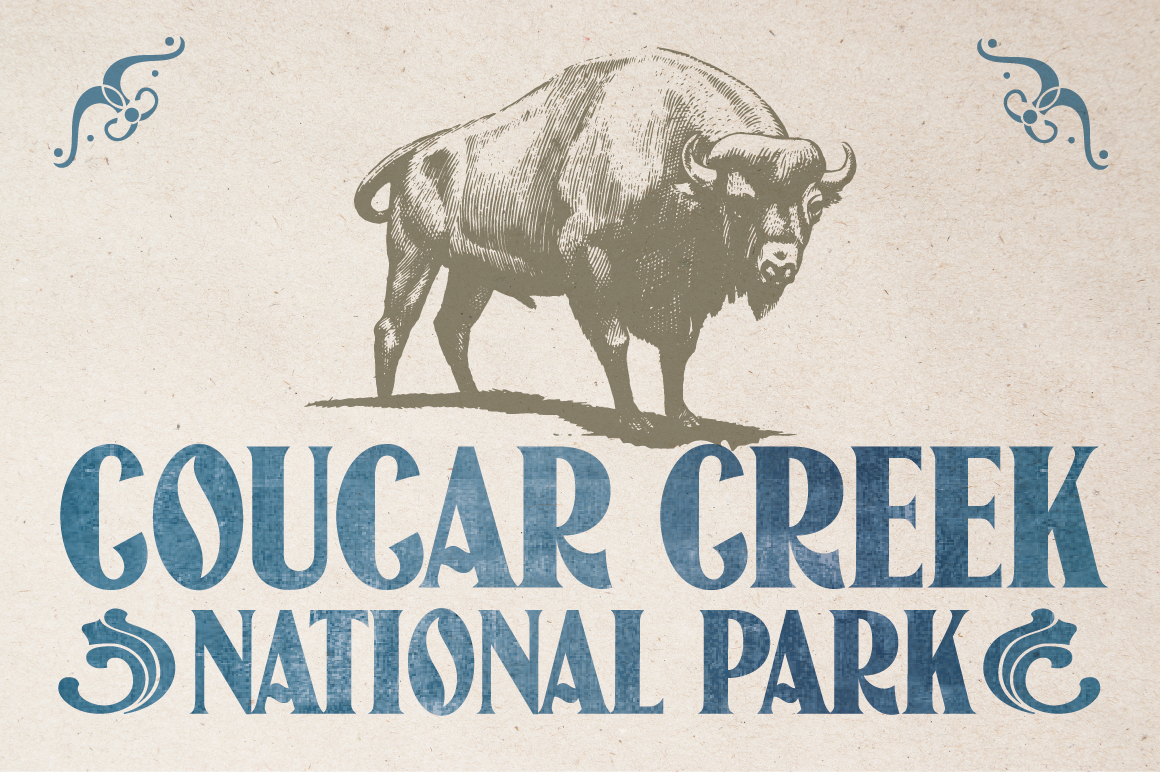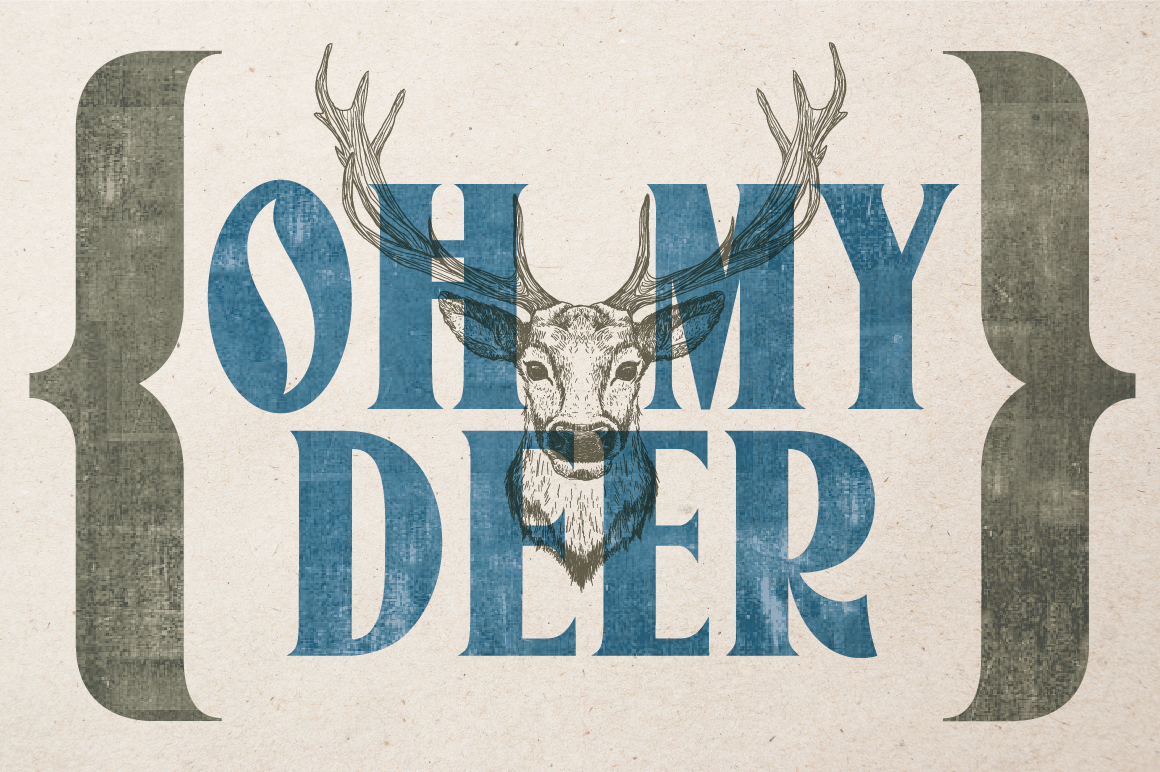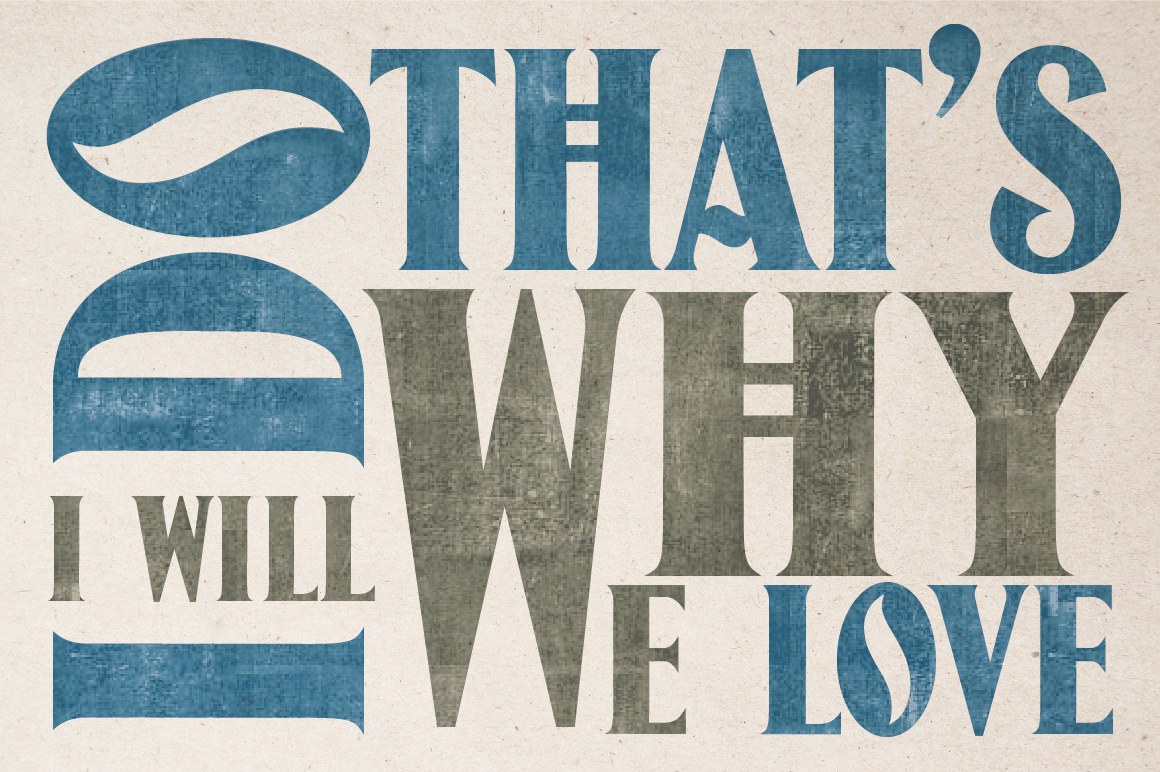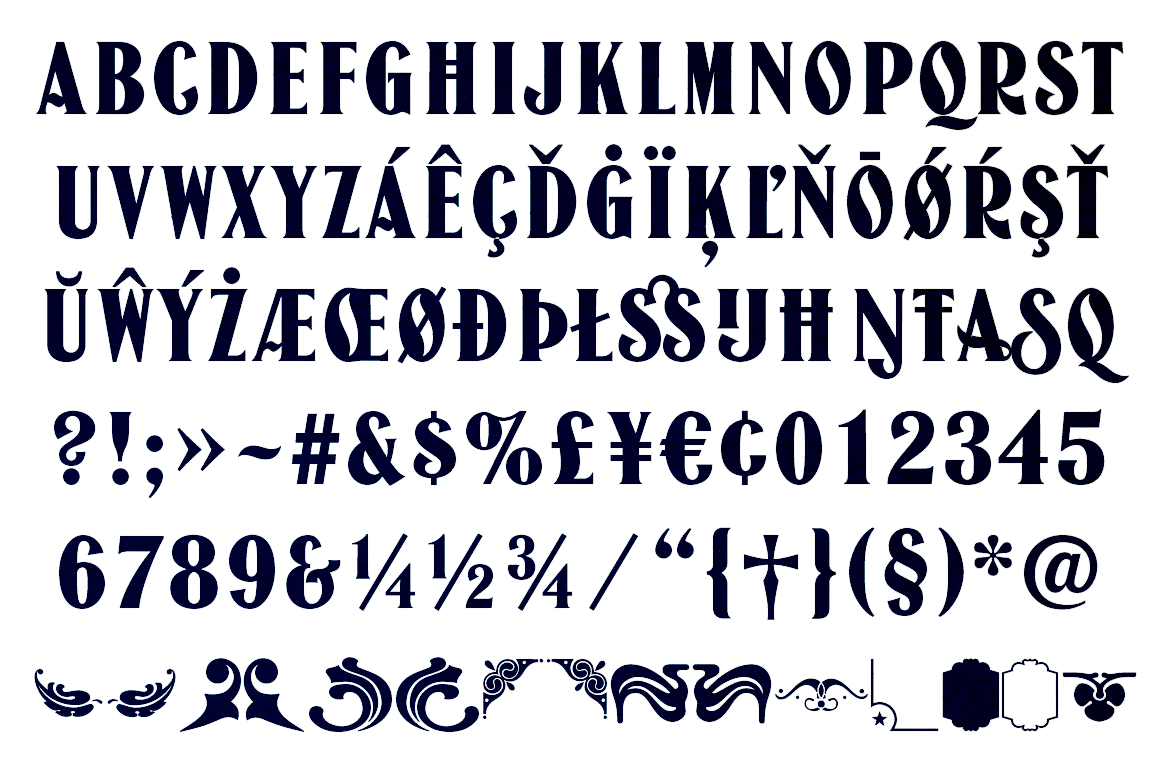
Jason Caps
Jason is a 19th-century American wood type design, not a modern digital invention. It originated in the era of large-format printing (circus posters, broadsides, advertising), when wood type was preferred over metal for large sizes. Jason Caps was redesigned by TypeFaith Fonts. Jason Caps is an all-caps font with lovely ornaments. Use the glyph palette to select the ornaments. Jason Caps comes in two fonts: normal and distressed.
Wood type fonts are strongly associated with 19th-century American printing, especially posters, circus bills, and advertising. They’re known for bold weight, condensed proportions, serifs, and high visual impact—all qualities that worked well for large-scale printing with wood rather than metal.
Jason comes in two fonts: Normal and distressed.